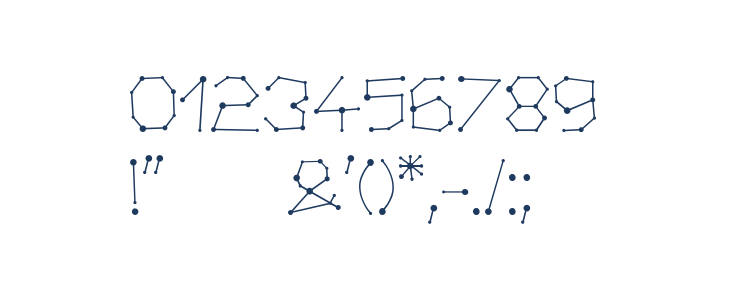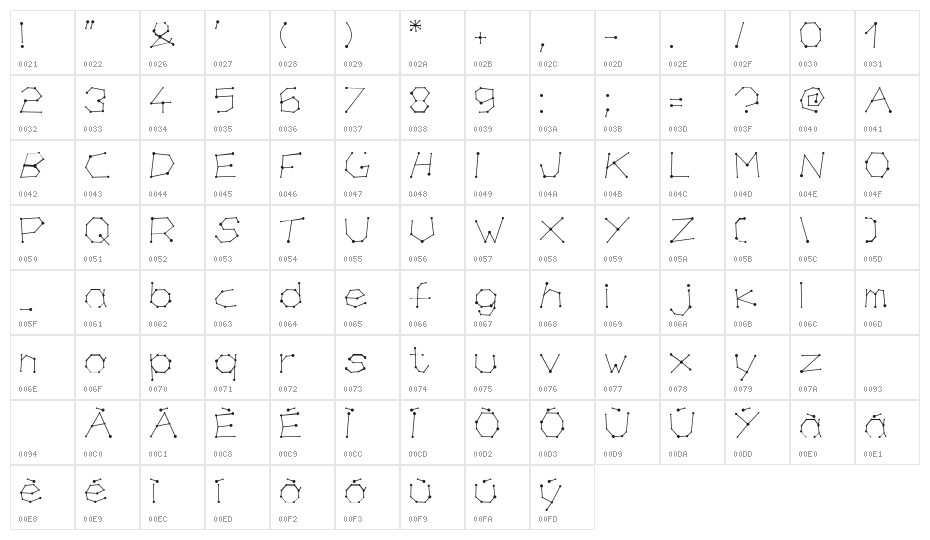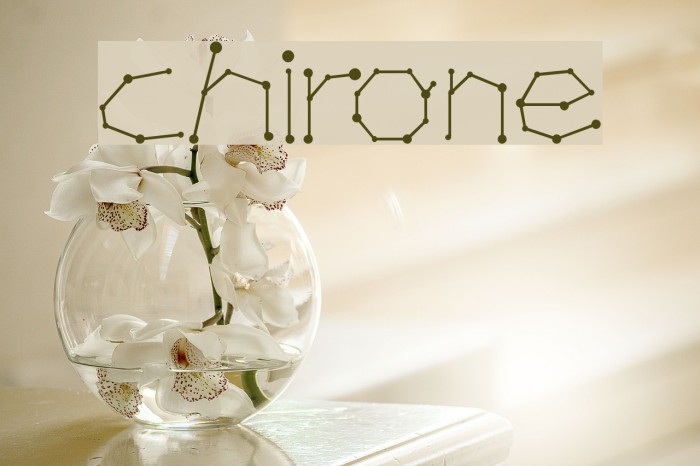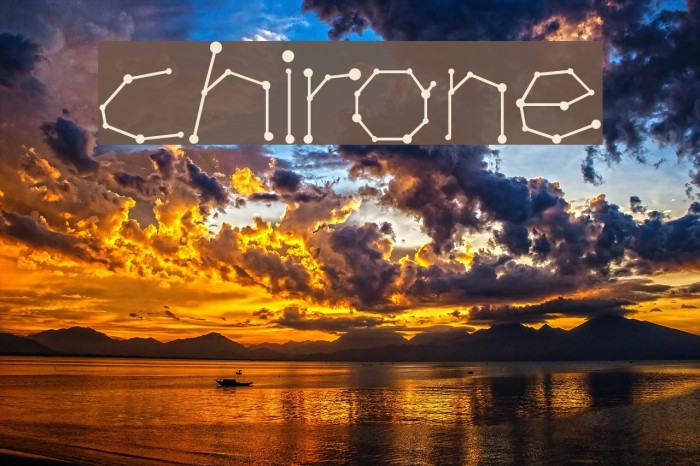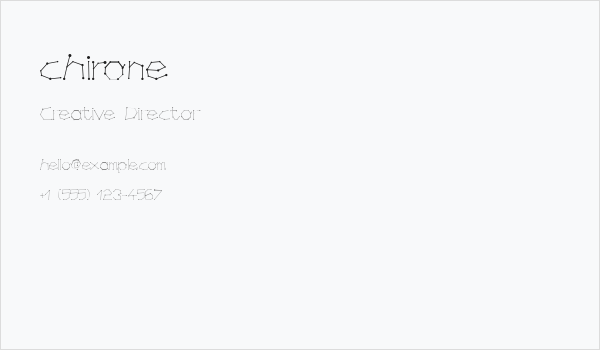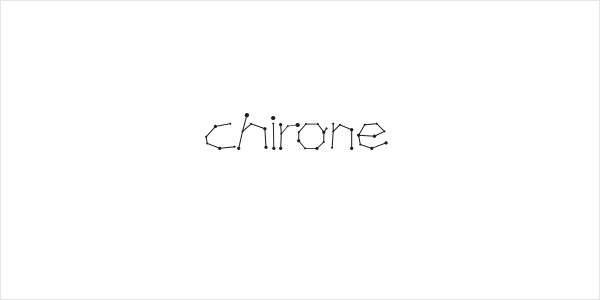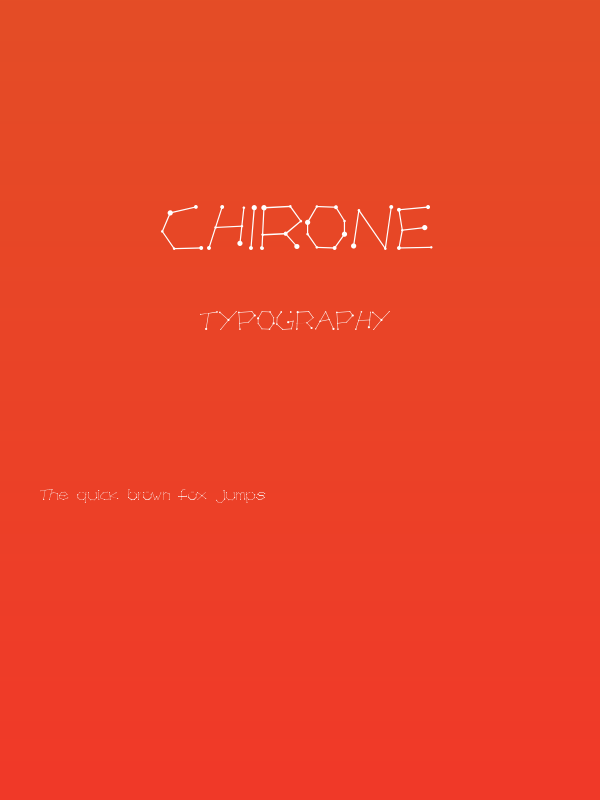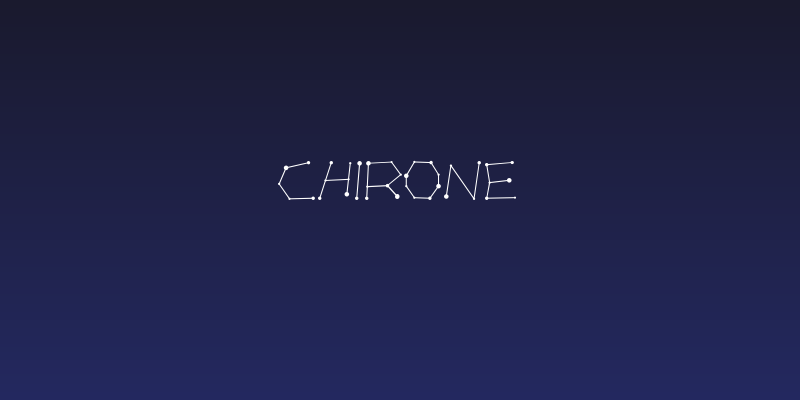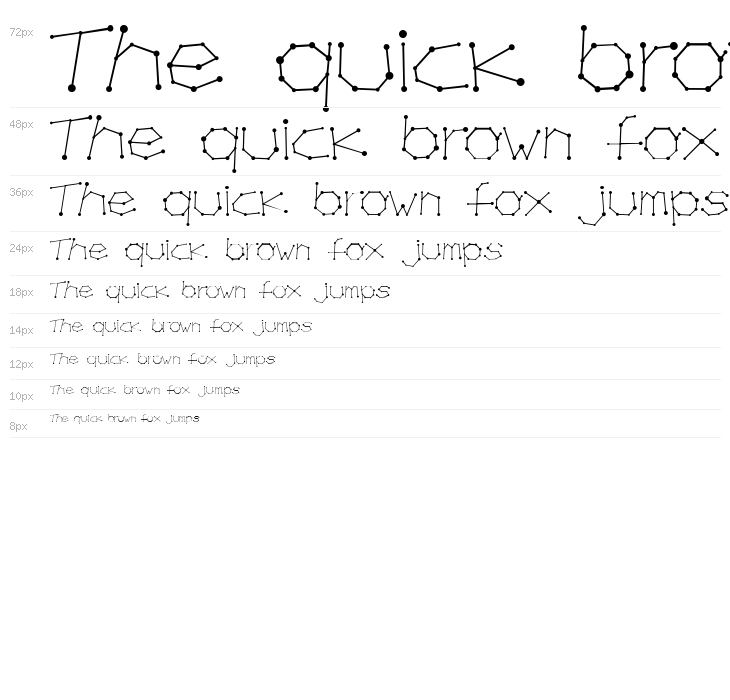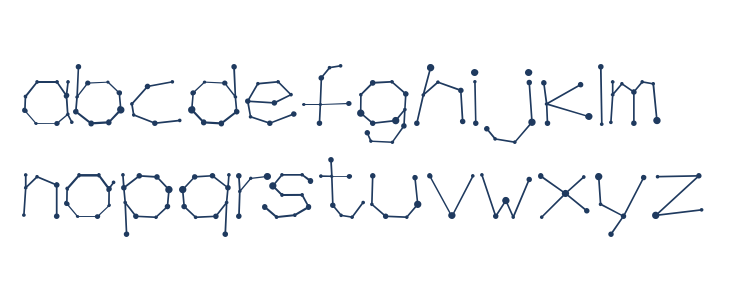
chirone Font
chirone Description
This font is a unique and creative design that mimics the appearance of constellations. Each character is composed of lines and dots, resembling stars connected by imaginary lines in the night sky. The design is both playful and artistic, making it stand out with its celestial theme. The uppercase and lowercase letters maintain a consistent style, with dots representing stars at key points and lines connecting them to form recognizable letter shapes. Numbers and special characters follow the same pattern, ensuring a cohesive look across all elements. This font is perfect for projects that require a whimsical or astronomical touch.
| Proposed Projects | Ideal for astronomy-themed posters, children's books, educational materials, and creative branding projects. |